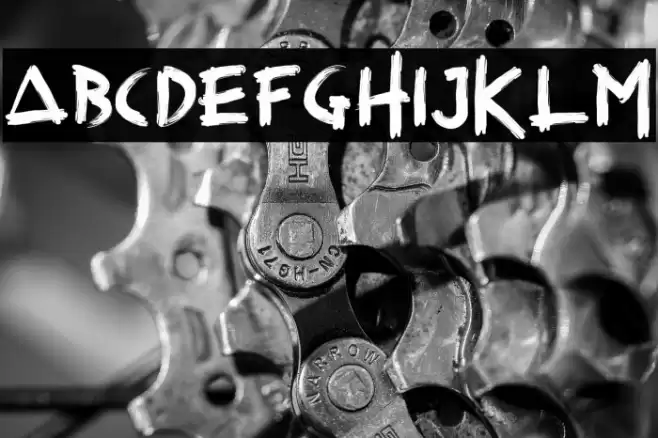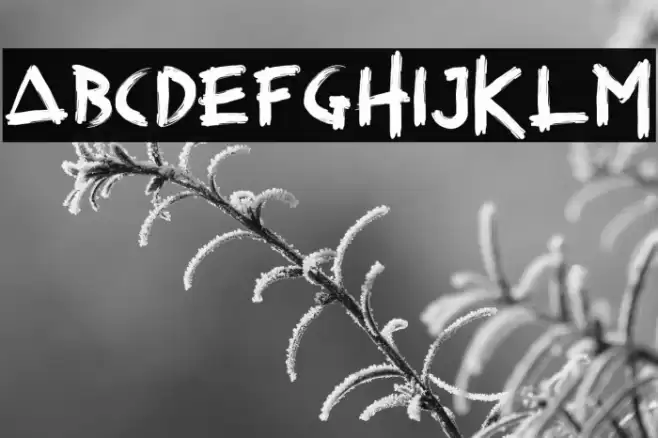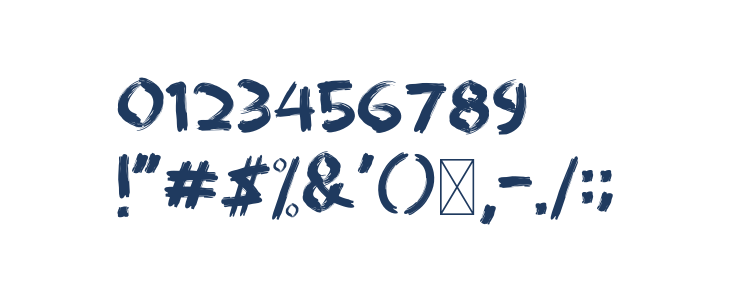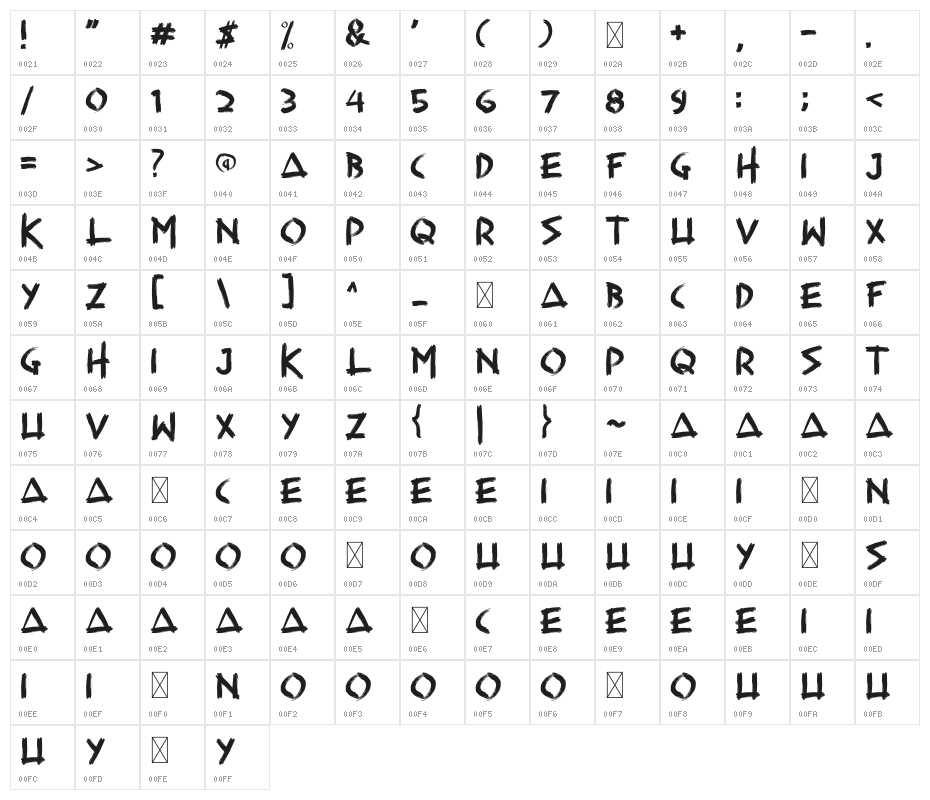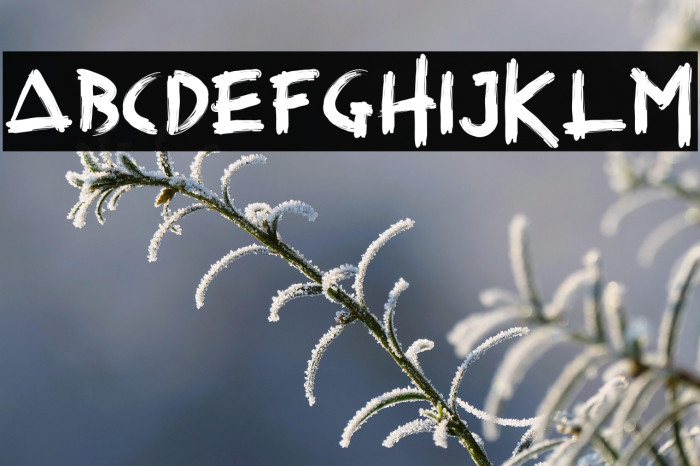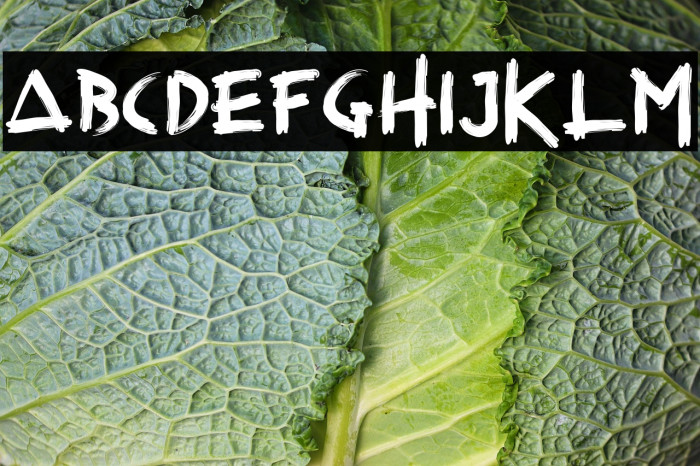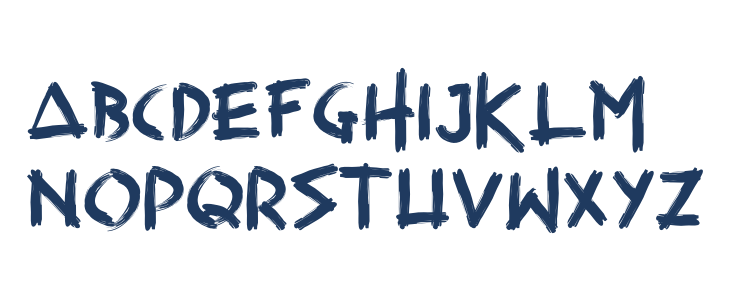
Hesrat Font
Hesrat Description
This font features a bold, brushstroke style that conveys a sense of dynamic energy and artistic flair. The characters are crafted with uneven strokes, giving them a hand-painted appearance that is both striking and expressive. The uppercase and lowercase letters maintain a consistent style, with the brushstroke effect creating a sense of movement and texture. Numbers and special characters are equally bold, ensuring a cohesive look across all elements. This font is ideal for projects that require a creative and bold statement, such as posters, branding, or artistic designs.
A bold, brushstroke font with an expressive, hand-painted style from Uncategorized fonts.
- Proposed Projects: Ideal for artistic posters, branding, and creative design projects.
- Use Case: Headlines, Logos, Artistic Designs